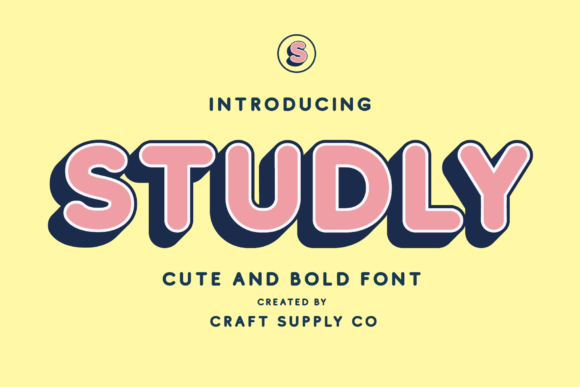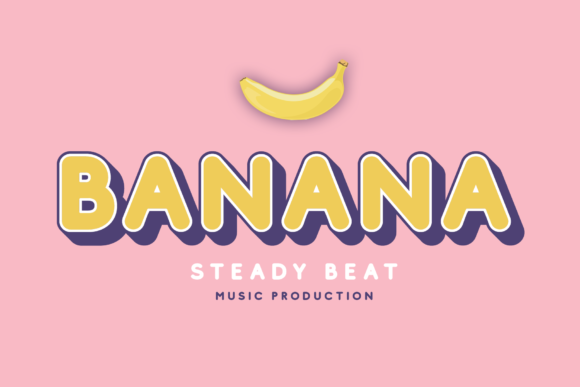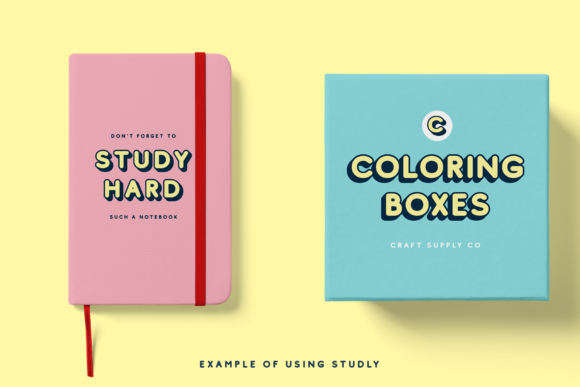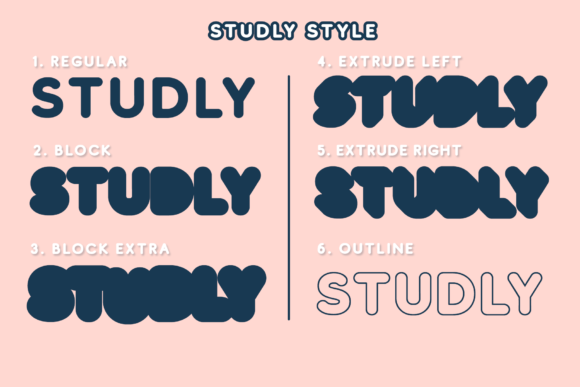
Studly Family Font
About the Studly Family Font
Explore the possibilities with Studly Family Font, a font that offers both beauty and functionality. The Studly is a striking sans serif family with bold, solid, and outlined font files. It’s suitable for greeting cards, quotes, posters, branding, stationary, design title, blog header, art quote, and every other design that needs a trendy typeface.
Studly Family Font Usage Examples
Studly Family Font Example